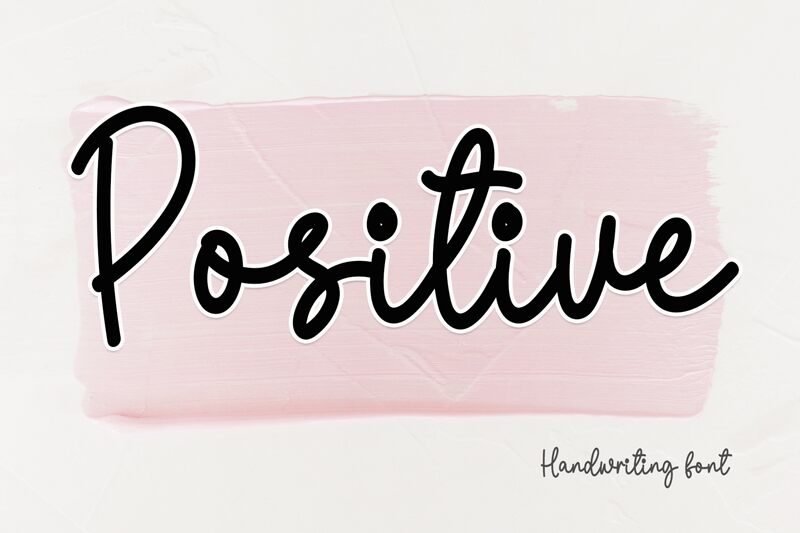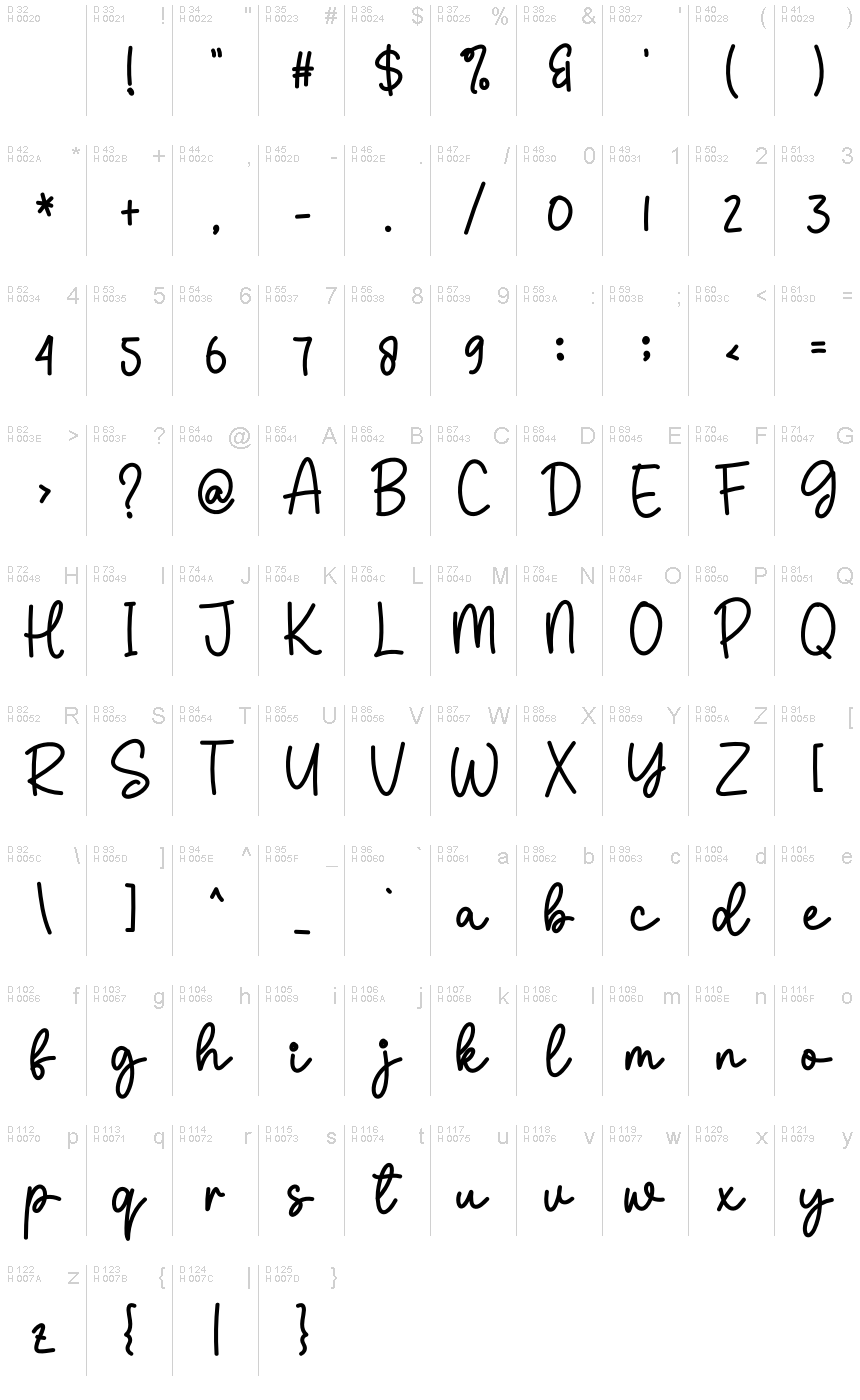
Positive
Positive font by Creatype Designer is a free handwritten font that embodies fluidity and dynamism. Its modern and approachable design offers a casual, friendly, and inviting feel to your projects. This graceful typeface can add an elegant touch to everything from logo designs to print publications.
Outstanding use cases for Positive include posters, website headers, digital marketing; business cards; typographic logos; invitations; branding stationery; notecards or postcards; journals or notebooks.